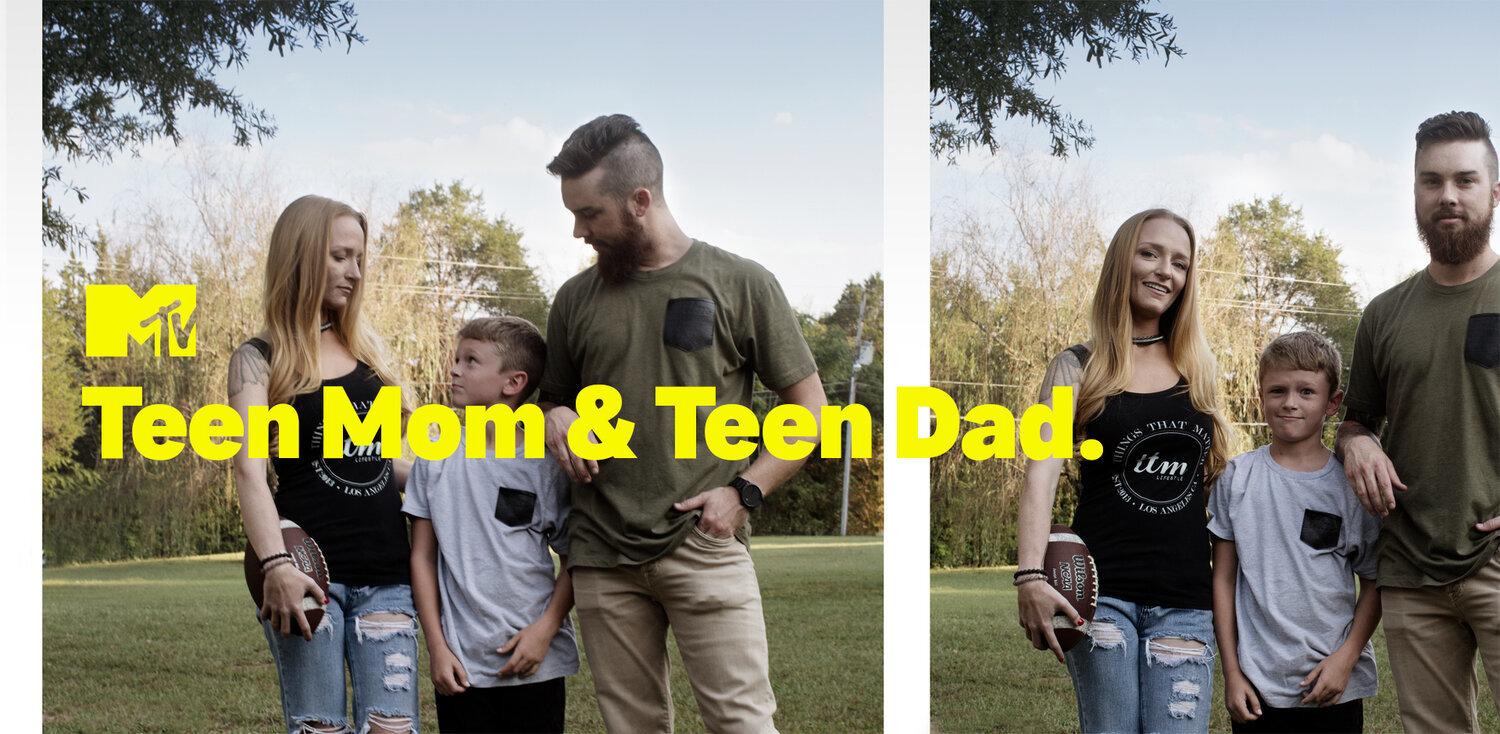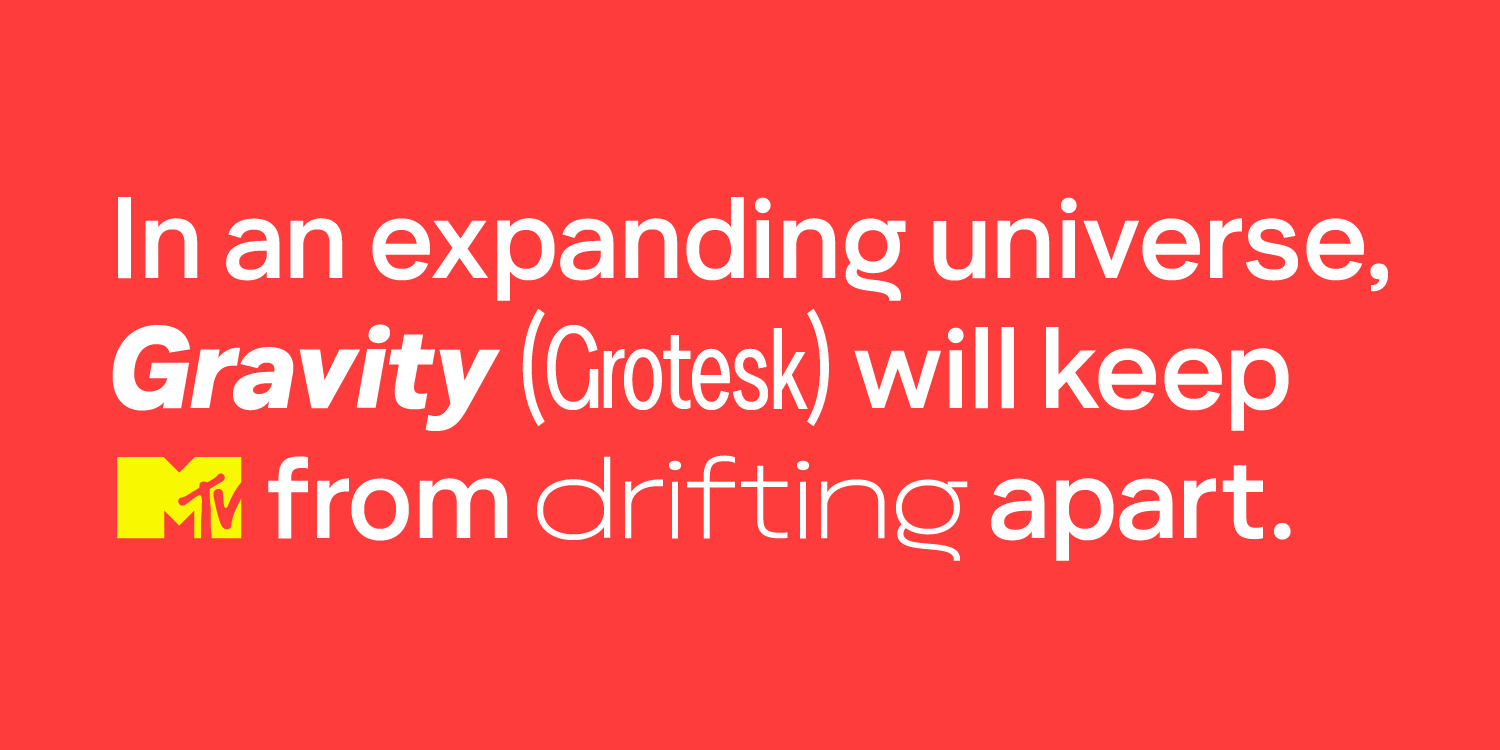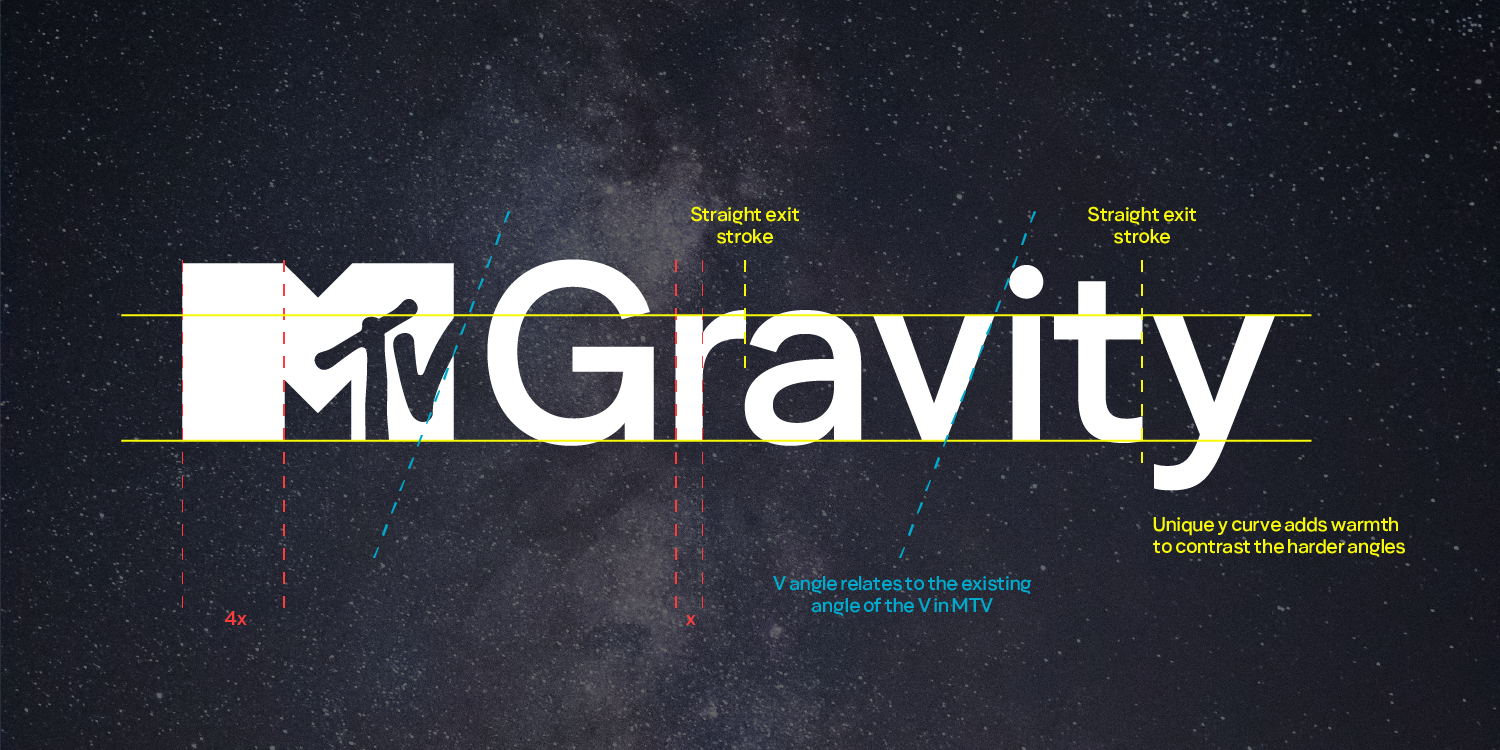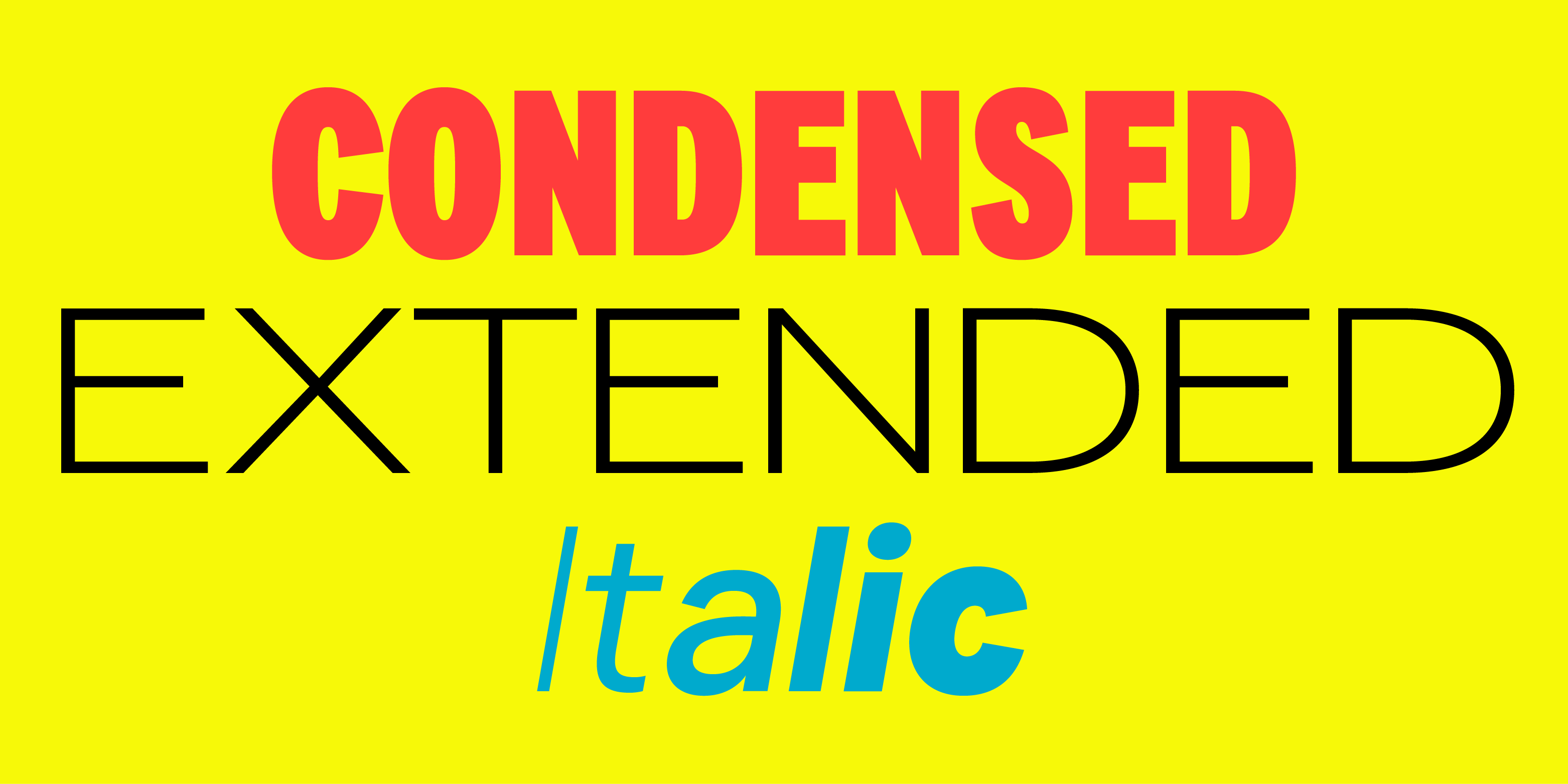
During MTV’s 40th anniversary rebranding, loyalkaspar commissioned a new typeface by Type Network partners Dyana Weissman (Kerns and Cairns) and Victoria Rushton. As MTV’s needs grew, Cyrillic characters were added by CSTM Fonts and Condensed Italics by Jacques le Bailly. The typeface needed to work at the myriad sizes necessary for a contemporary media network, ranging from television to desktop and from laptops to mobile screens.
Creating “more of a workhorse than a show pony,” according to Weissman, she and Rushton decided to put usability first, entrusting the talented designers at loyalkaspar and MTV to bring it to life.
Music Television crash landed on August 1, 1981 at 12:01 AM EST with a montage of images from the Apollo 11 moon landing. Memories of the MTV flag staking into the moon have lingered in our cultural consciousness for decades since.
On that first day of broadcasting, MTV used a different typeface in each video for their lower third graphics, designating such information as artists, song titles, and record labels in a typographic rainbow. The network eventually settled on Rudolph Koch’s Kabel as their brand typeface, defining much of MTV’s typographical identity for the next 25 years. In the 40 years since launching, MTV has revised their identity only three times, preferring smaller tweaks to large overhauls.
The most recent revision, which took place this year—led by branding agency loyalkaspar—anticipated the channel’s momentous 40th anniversary. The approach was holistic, addressing everything from the iconic MTV logo to its color palette and, importantly, a custom typeface from our Type Network partners.
The resulting typeface, MTV Gravity Grotesk, is a straightforward sans serif with an almost imperceptible contrast. The letterforms manage to let the media content shine without sacrificing any of MTV’s dynamic character. As loyalkaspar jokes in their case study, Gravity Grotesk is “business in the front, party in the back.”
It flexibly functions in 24 styles in three widths and six weights and “has been integral in giving the brand a consistent and ownable design language across all of [MTV’s] platforms,” says Richard Browd, VP of Brand Creative at MTV Entertainment Group: “Whether large or small, on-screen or out of home, this diverse font set is extremely legible without sacrificing any of the brand's personality.”
MTV Gravity Grotesk balances utility and style for one of the most recognizable television channels on earth. Like Rudolph Koch’s Kabel, Gravity Grotesk will play a vital role in MTV’s graphic direction for many decades to come.